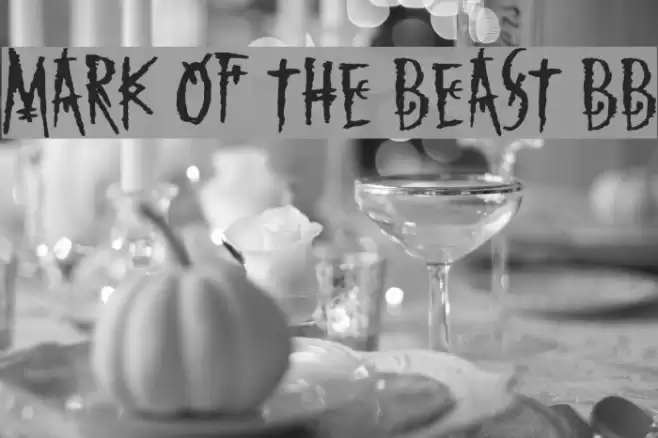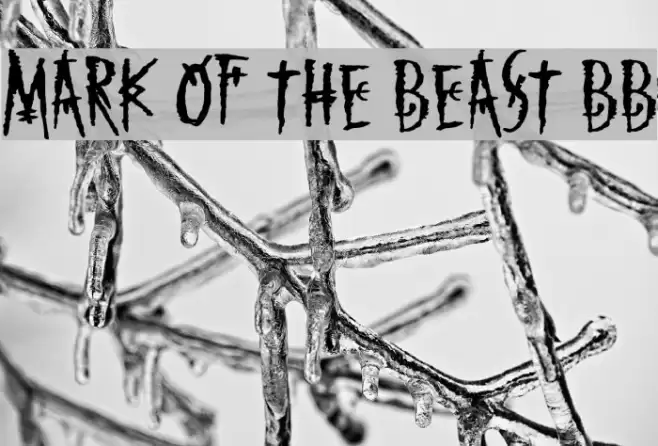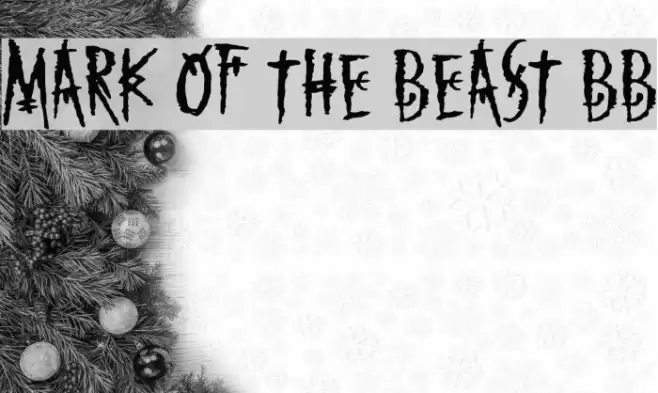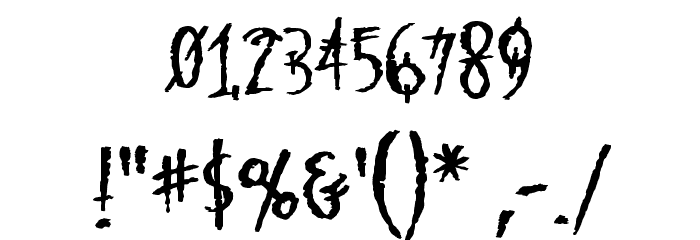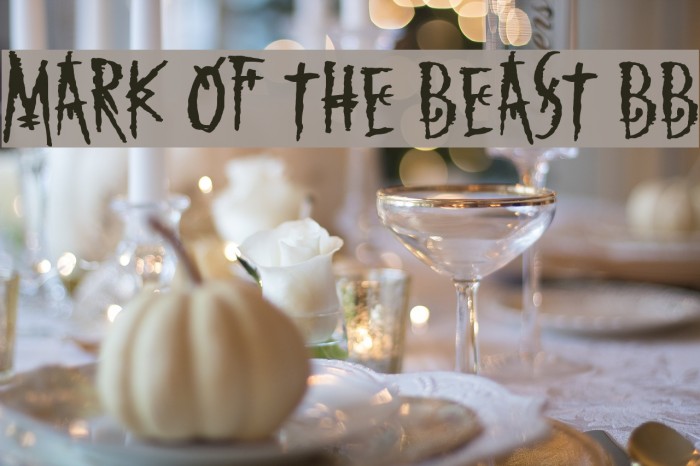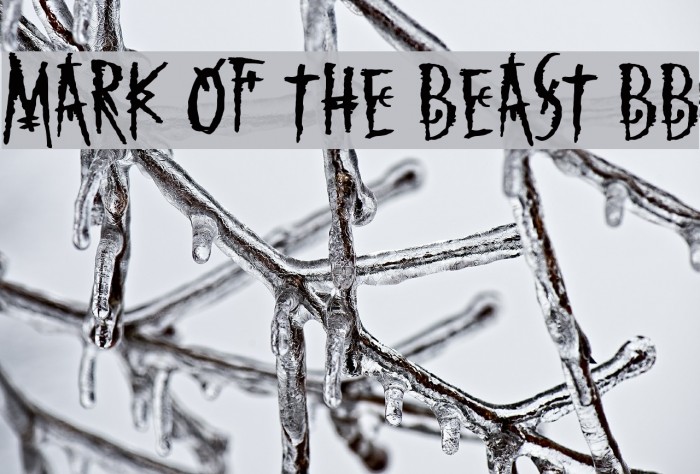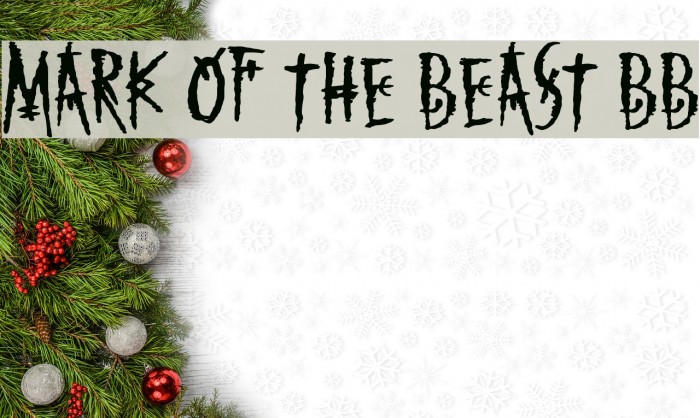
Mark of the Beast BB Font
Mark of the Beast BB Description
This font features a rugged, distressed appearance with jagged edges and irregular strokes, giving it a chaotic and intense look. The characters are bold and uneven, with a hand-drawn quality that suggests a sense of urgency or danger. The uppercase and lowercase letters maintain a consistent style, with exaggerated serifs and varying line thicknesses that add to the font's dramatic impact. Numbers and special characters follow the same design, ensuring a cohesive visual theme. This font is ideal for projects that require a bold, eye-catching statement.
A rugged, distressed font with jagged edges and a chaotic, intense style from Uncategorized fonts.
- Proposed Projects: Suitable for horror-themed designs, album covers, posters, and video game graphics.